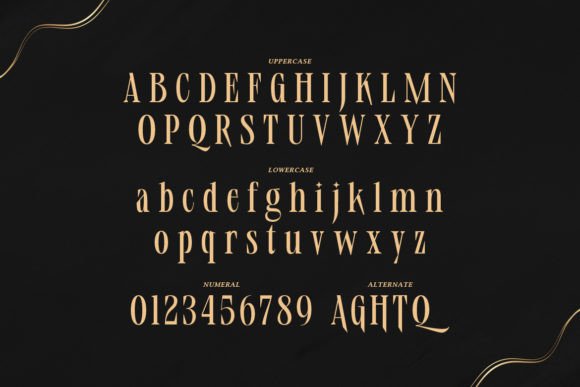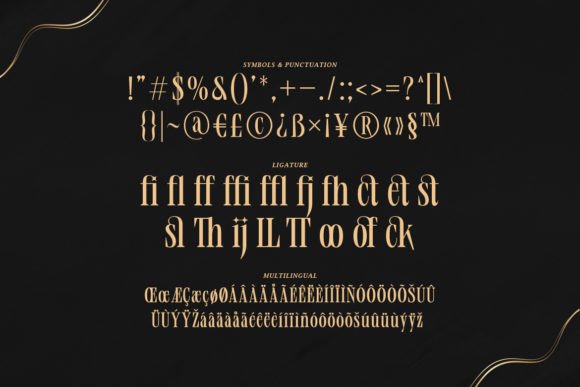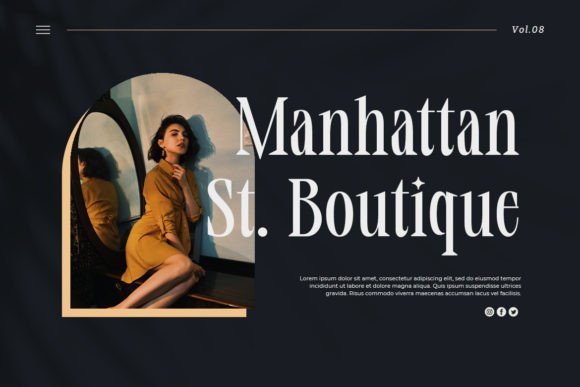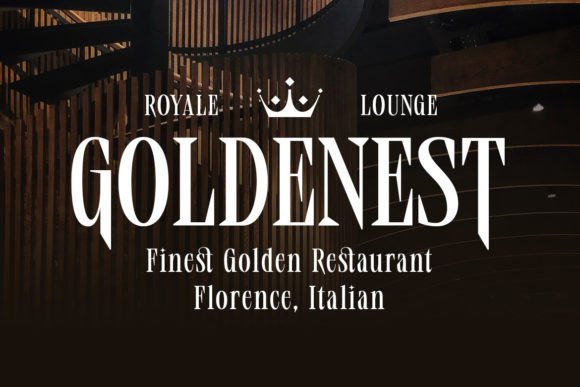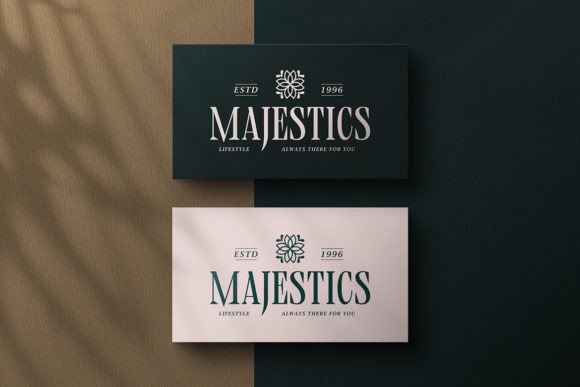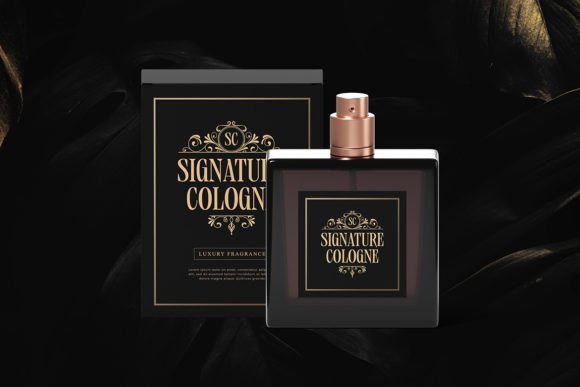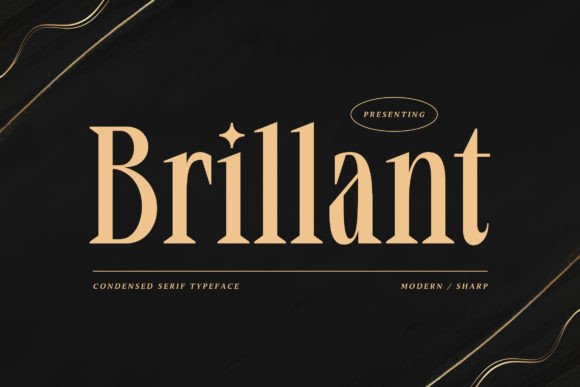
Introducing Brillant: The Ultimate Serif Typeface for Sophisticated Designs
In the world of typography, a good font can make all the difference in elevating a design project from ordinary to extraordinary. For designers and crafters looking for a sleek and modern condensed serif typeface that exudes sophistication and style, look no further than Brillant. With its clean lines and elegant curves, this font is perfect for any project that requires a touch of refinement.
What is Brillant?
Brillant is a carefully crafted serif typeface designed to bring a sense of luxury and elegance to any design project. Its condensed structure makes it ideal for use in a variety of applications, from logos and marketing materials to websites and more. The font’s sleek lines and curves are meticulously designed to create a sense of harmony and balance, making it perfect for designers who want to add a touch of sophistication to their work.
Key Features of Brillant
• Condensed Structure: Brillant’s condensed structure makes it perfect for use in tight spaces, such as logos, headlines, and titles.
• Elegant Curves: The font’s elegant curves add a touch of sophistication and refinement to any design project.
• Clean Lines: Brillant’s clean lines create a sense of clarity and legibility, making it perfect for use in a variety of applications.
• Modern Aesthetic: The font’s modern aesthetic makes it perfect for designers who want to create a fresh and contemporary look.
Use Cases for Brillant
Brillant is a versatile font that can be used in a variety of applications, including:
• Logo Design: Brillant’s condensed structure and elegant curves make it perfect for use in logos and branding materials.
• Marketing Materials: The font’s clean lines and modern aesthetic make it perfect for use in marketing materials, such as brochures, flyers, and posters.
• Web Design: Brillant’s legibility and sophistication make it perfect for use in website design, particularly for headings and titles.
• Print Design: The font’s elegant curves and clean lines make it perfect for use in print design, including books, magazines, and newspapers.
Why Choose Brillant?
With so many fonts to choose from, why choose Brillant? Here are just a few reasons why Brillant stands out from the crowd:
• Unique Aesthetic: Brillant’s unique aesthetic sets it apart from other serif typefaces, making it perfect for designers who want to create a distinctive look.
• High-Quality Design: The font is meticulously designed to ensure high-quality output, even at small sizes.
• Versatility: Brillant’s versatility makes it perfect for use in a variety of applications, from logos to websites.
In conclusion, Brillant is a sleek and modern condensed serif typeface that is perfect for designers and crafters looking to add a touch of sophistication and style to their design projects. With its clean lines, elegant curves, and versatile use cases, Brillant is the ultimate font for anyone looking to elevate their design to the next level. Whether you’re designing a logo, creating marketing materials, or crafting a website, Brillant is the perfect choice.